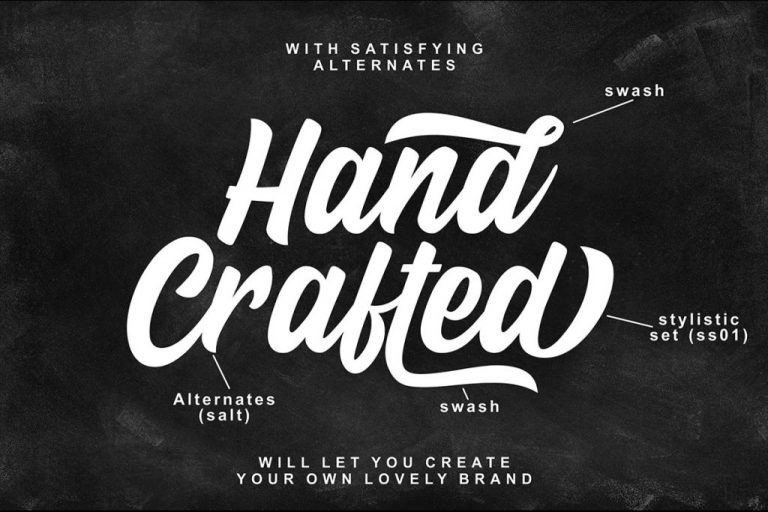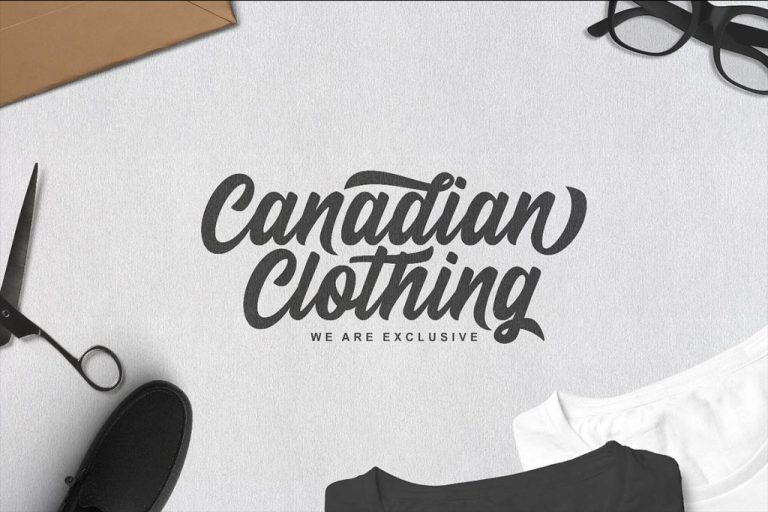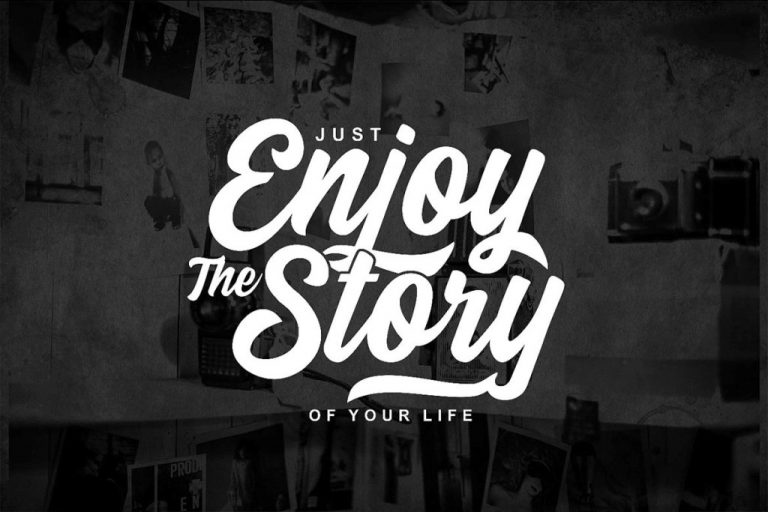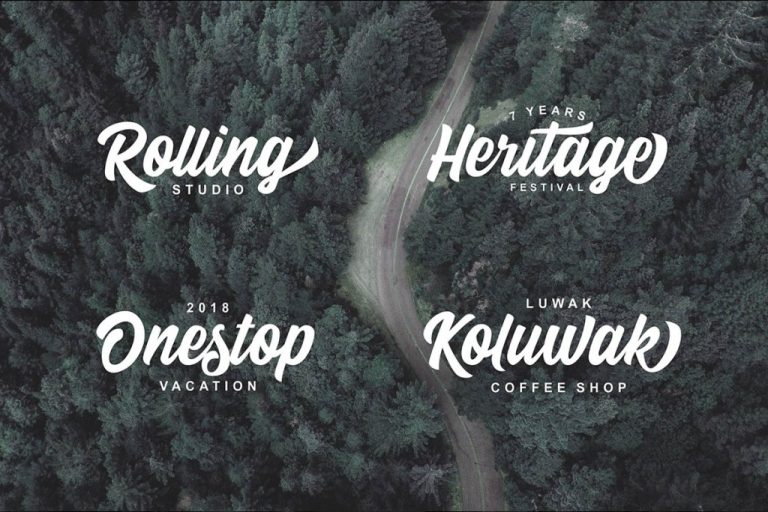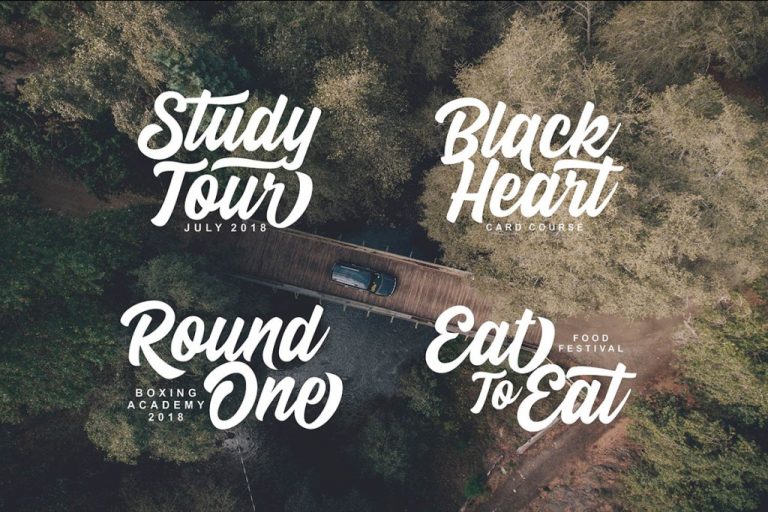
Calling Heart
We present our new product called Calling Heart. The Calling Heart font is modern handmade font, dinamic and also has beautiful opentype features. Calling Heart is easily to use for your work ; Branding, Logo Design, Lettering, Clothing, Poster and others.
• Opentype Features (Ligature, Alternate, Swash, Stylistic Set)
• Multilingual Support ( Danish,Finnish,English, Spanish,Dutch,German,Icelandic,Italian, Norwegian,Portuguese,Indonesian, Swedish)